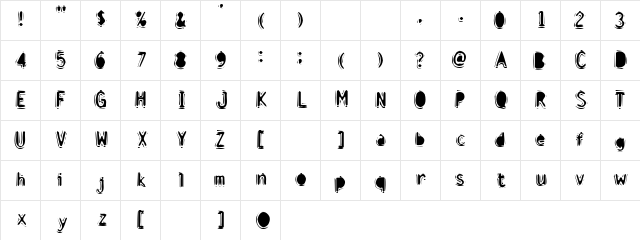
Discount Inferno Bold
Design Context for Discount Inferno Typeface
Discount Inferno is a composed and adaptable typeface that performs quietly and consistently across a wide range of design contexts. Its bold stroke weight gives it real presence on the page.